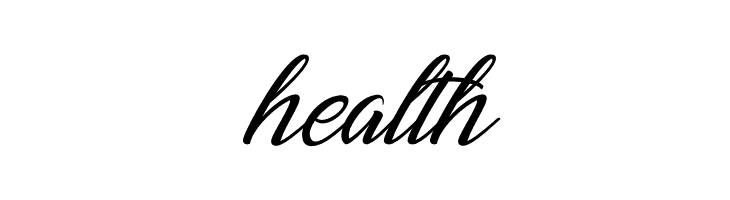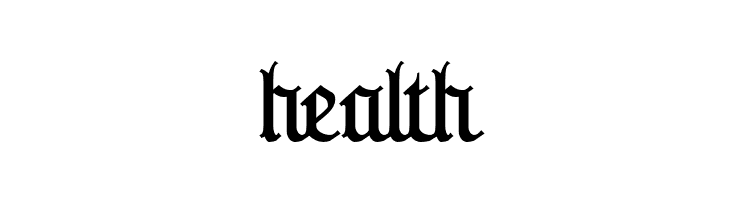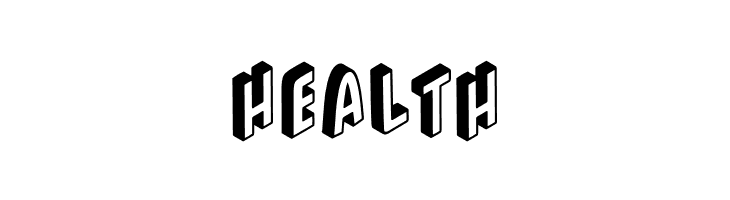
EastCoast-Regular Font
A lively, handwritten font with fluid, expressive strokes.
SaltyFeathersDEMO-Regular Font
A graceful, handwritten script font with elegant, flowing strokes.
Scarlett Display DEMO Font
A bold, serif font with strong strokes and sharp serifs, ideal for impactful designs.
Football Attack Font
A bold, geometric font with strong, angular lines and a sports-inspired design.
masquerouge Font
A modern, decorative font with elongated, angular characters and high contrast.
Callera Demo Font
A dynamic and elegant script font with fluid, cursive strokes.
Anggaran Dasar Font
A traditional blackletter font with ornate, angular letterforms and a bold, dramatic style.
Anggaran Dasar Font
An ornate Blackletter font with intricate, gothic-inspired letterforms.
NINJA Font
A geometric, angular font with a futuristic and bold design.
Henshin Script Personal Use Font
A fluid and elegant script font with dynamic cursive letterforms.
BEKO Font
A bold, hand-drawn font with textured, brush-like strokes.
Northon [Demo] Font
A bold, decorative font with unique uppercase flair and consistent lowercase design.
masquerouge rough Font
A bold, decorative font with a rough, vintage texture and angular serifs.
Kamako Font
A bold, handwritten font with a playful and casual style.
Balada Font
A bold, handwritten font with dynamic strokes and a lively style.
Bafaco_signature Font
A casual, elegant handwritten font with smooth, flowing lines.
masquerouge italic Font
A sleek, elongated italic font with decorative elements and a modern style.
Angelia Font
A delicate and flowing script font with elegant curves.
Abnada Font
A dynamic, hand-brushed font with expressive, irregular strokes.